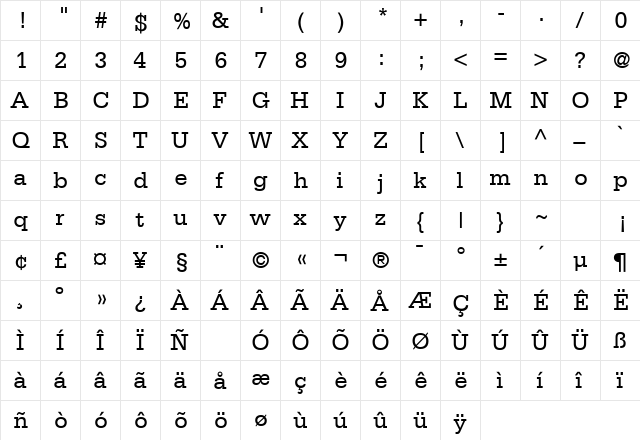
Centric SSi Regular
Design Context for Centric SSi Typeface
Centric SSi takes a measured approach to typography — its balanced proportions and neutral character make it a reliable workhorse for both digital and print work.